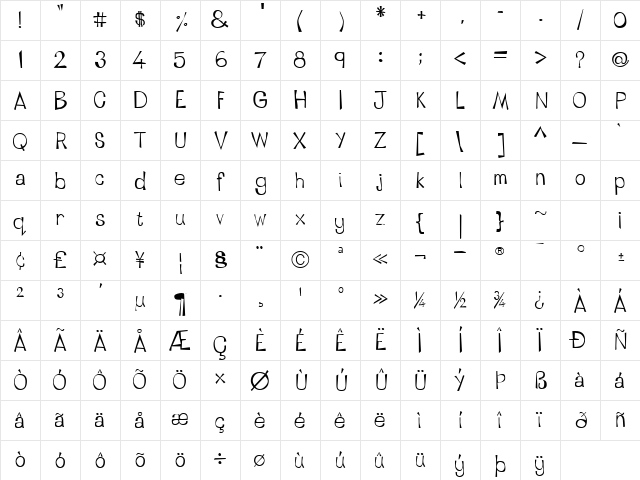
Design Context for LTTapeside Regular
LTTapeside Regular is a composed and adaptable typeface that performs quietly and consistently across a wide range of design contexts.
Pro Tip: Use LTTapeside Regular in both headline and body roles to test its range before committing to a single application.